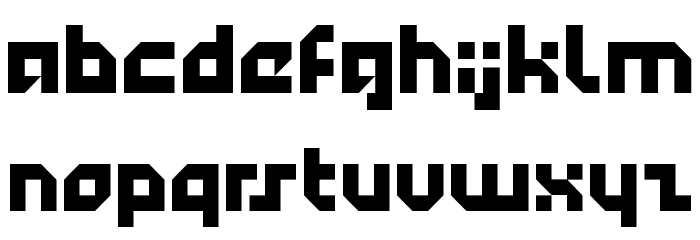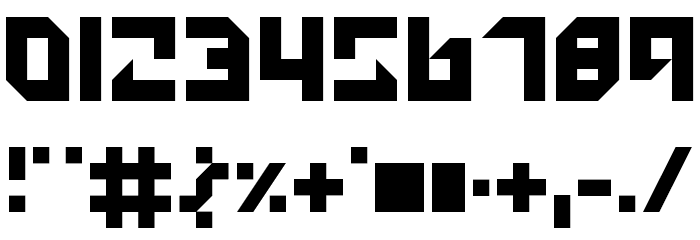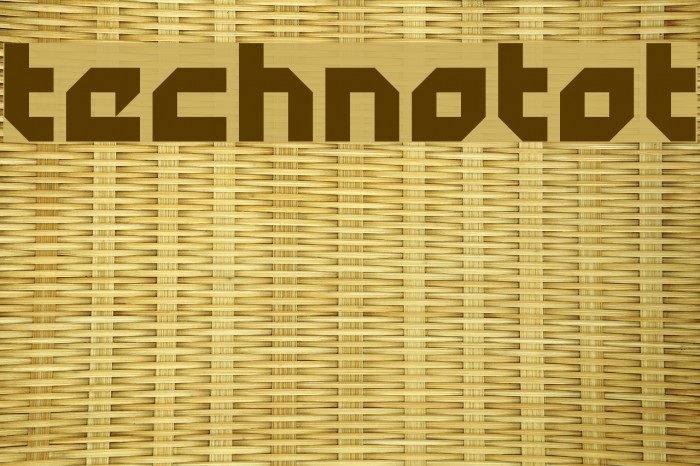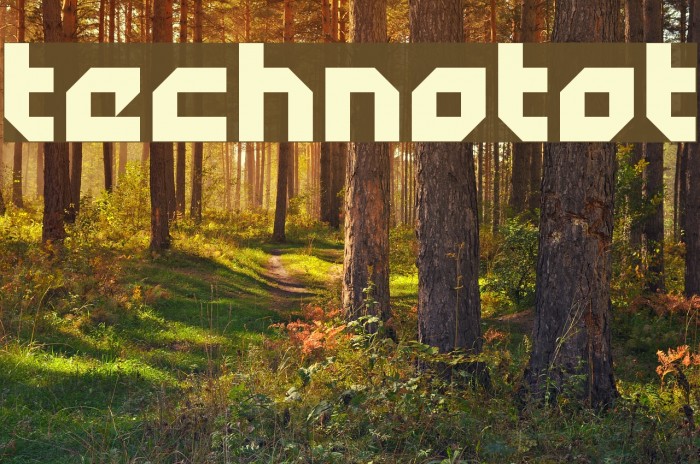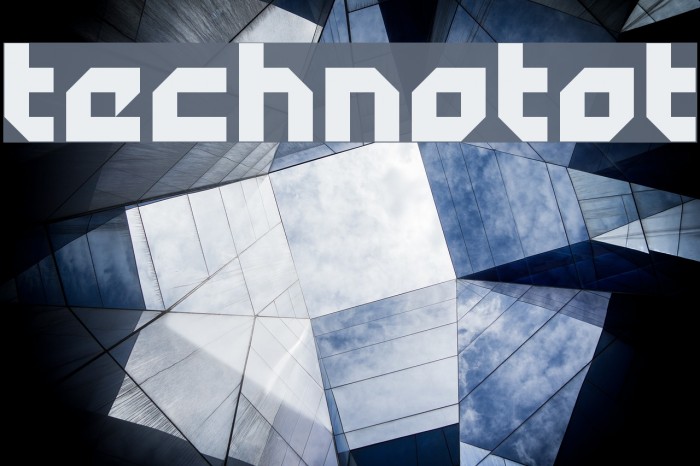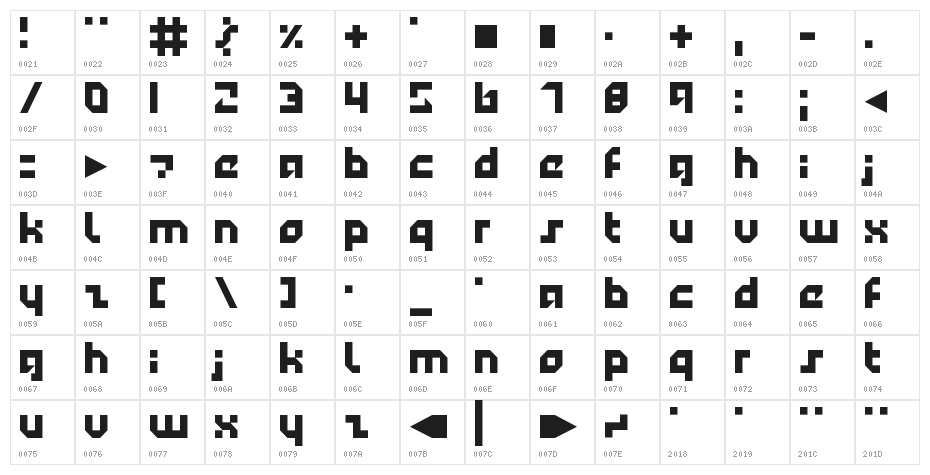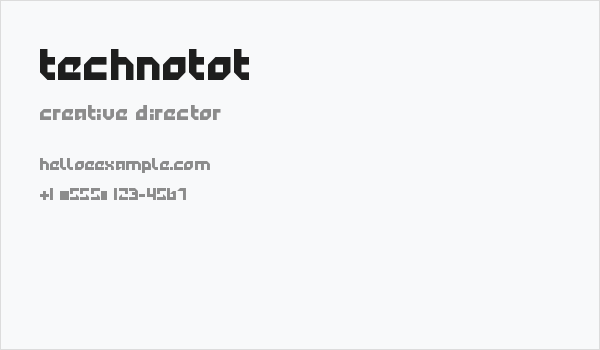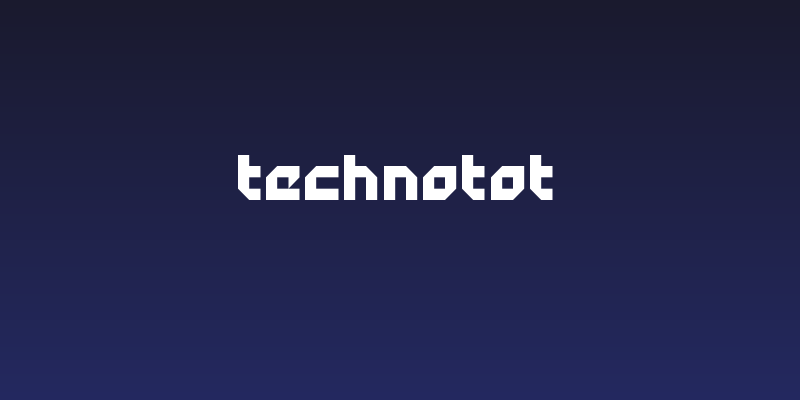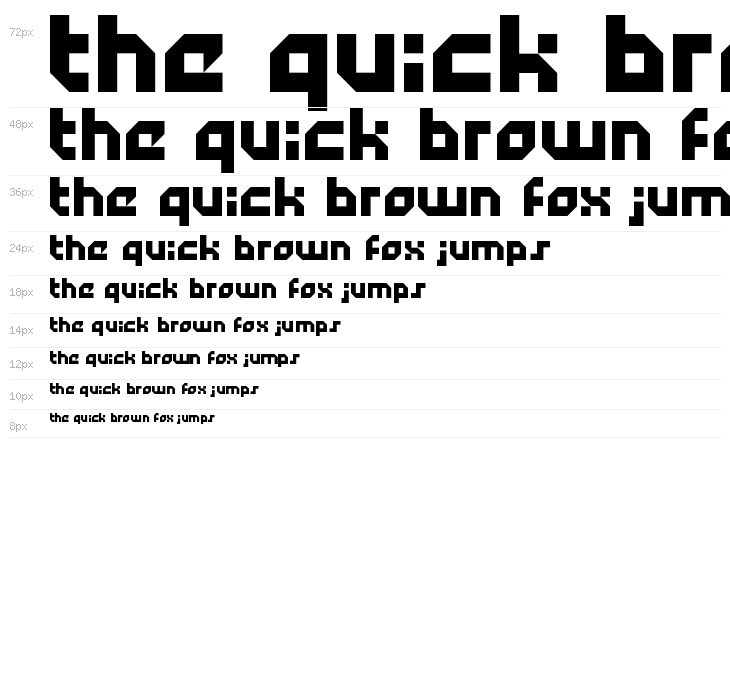
Technotot Font
This font features a bold, geometric design with sharp angles and a futuristic aesthetic. The characters are constructed with straight lines and right angles, giving it a blocky, digital appearance. The uppercase and lowercase letters maintain a consistent style, with uniform stroke widths and minimal curves. The numerals and special characters follow the same angular design, ensuring a cohesive look across all glyphs. This font's distinct style makes it stand out, ideal for projects that require a modern and tech-inspired feel.
A bold, geometric font with a futuristic, digital aesthetic.
- Proposed Projects: Ideal for technology branding, video game titles, sci-fi posters, and digital interfaces.